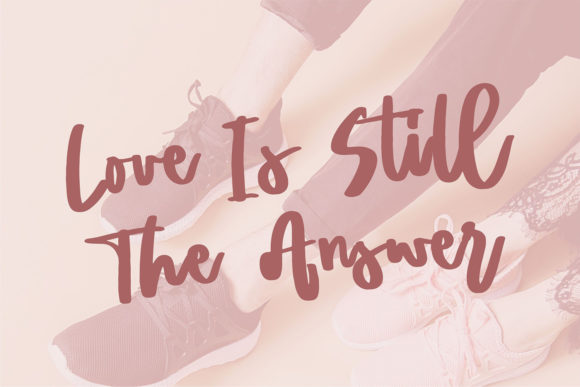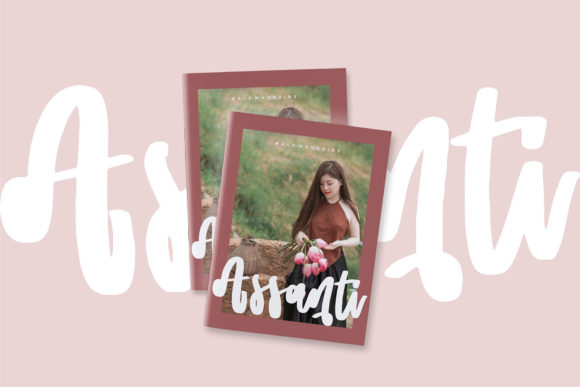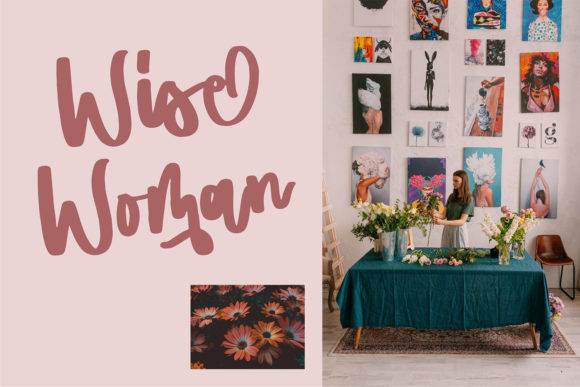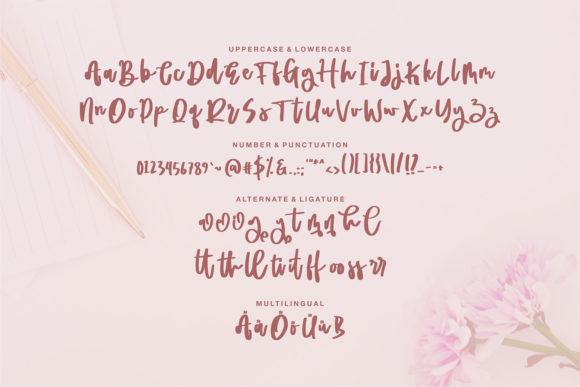
Flengki Font
About Flengki Font
Flengki is a modern, whimsical and thick lettered paint brushed script font. Its authentic handwritten look and feel will add a personal and realistic feel to your designs. Fall in love with this font’s incredibly versatile style and use it to create spectacular designs!